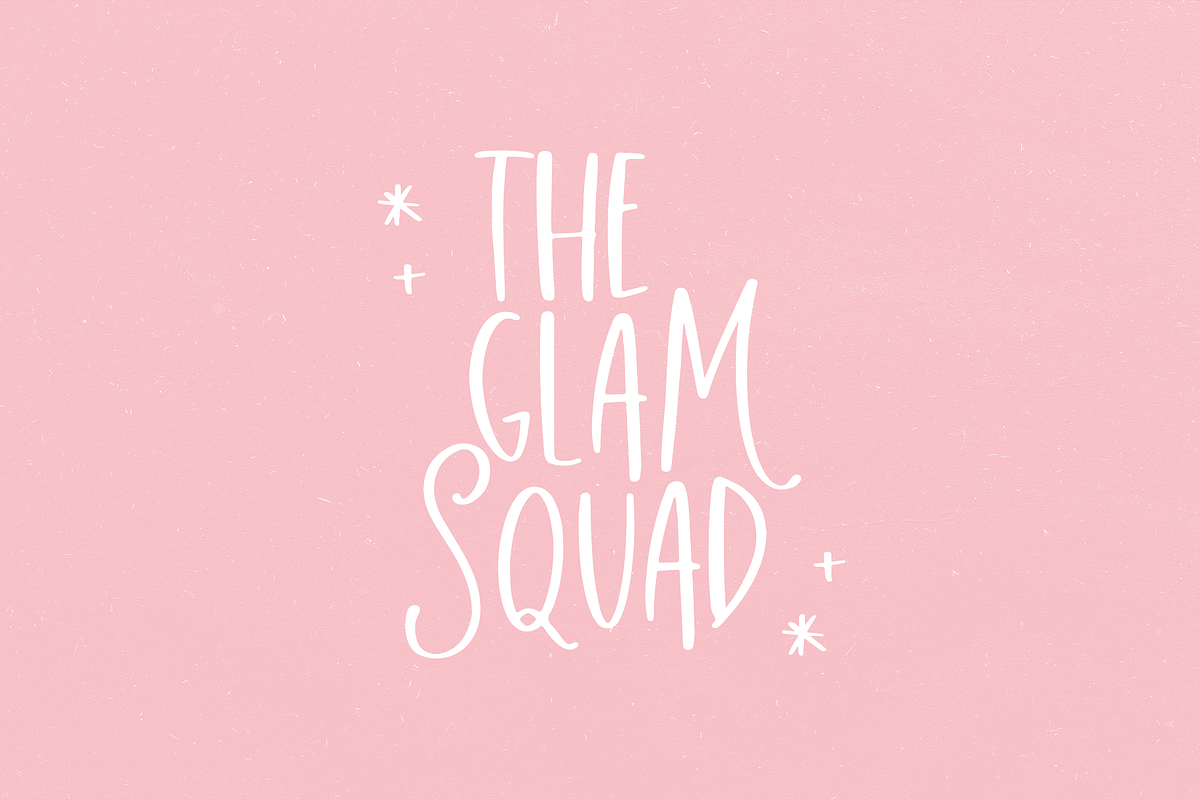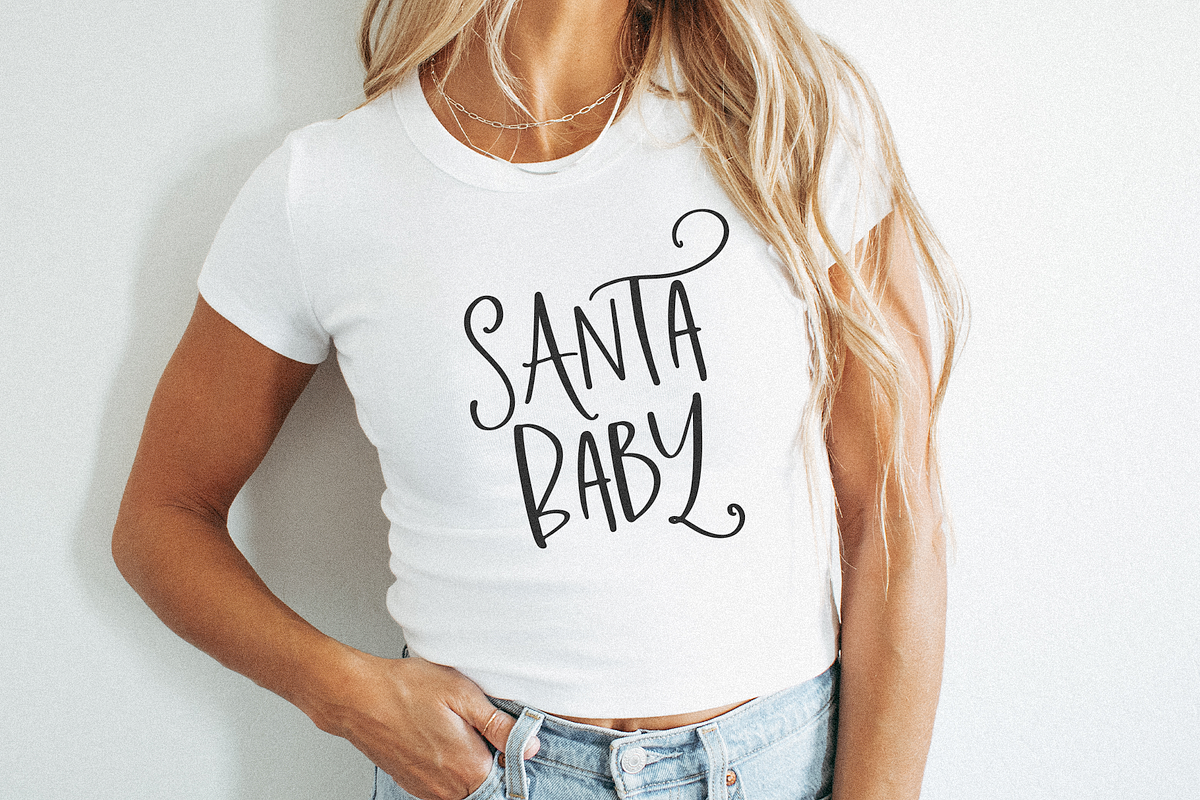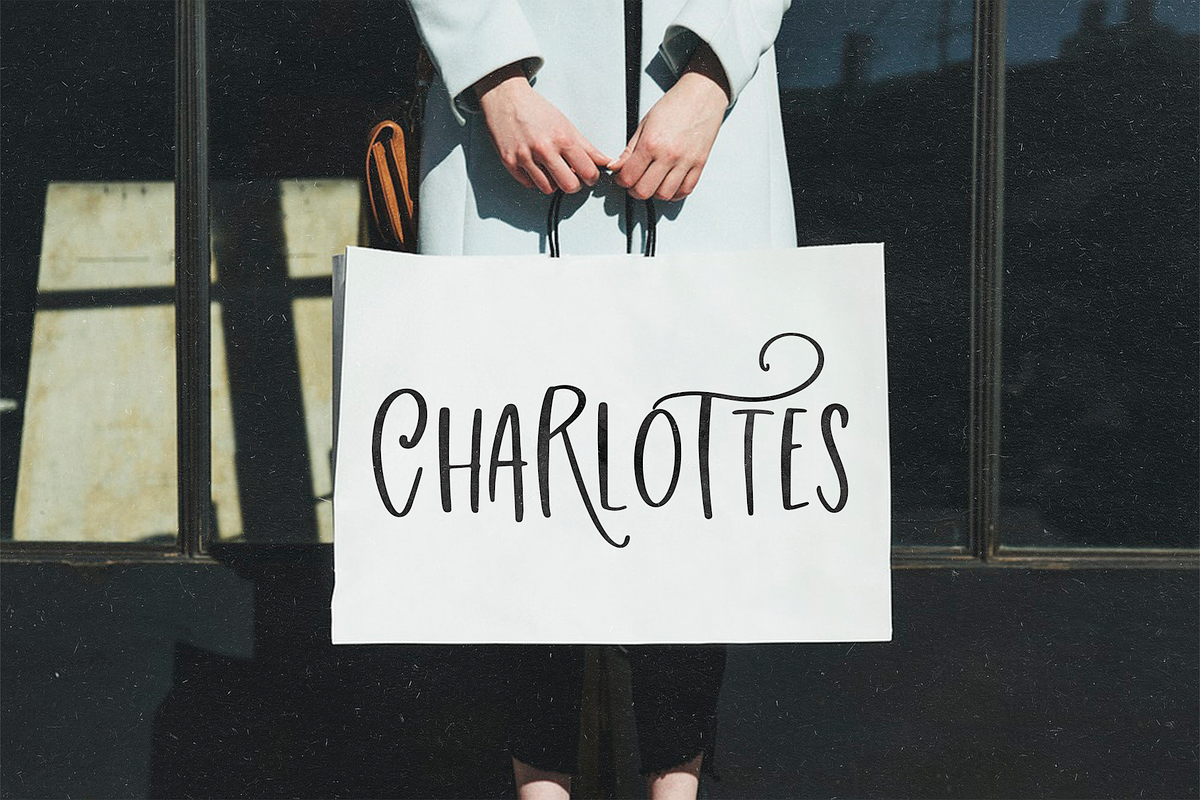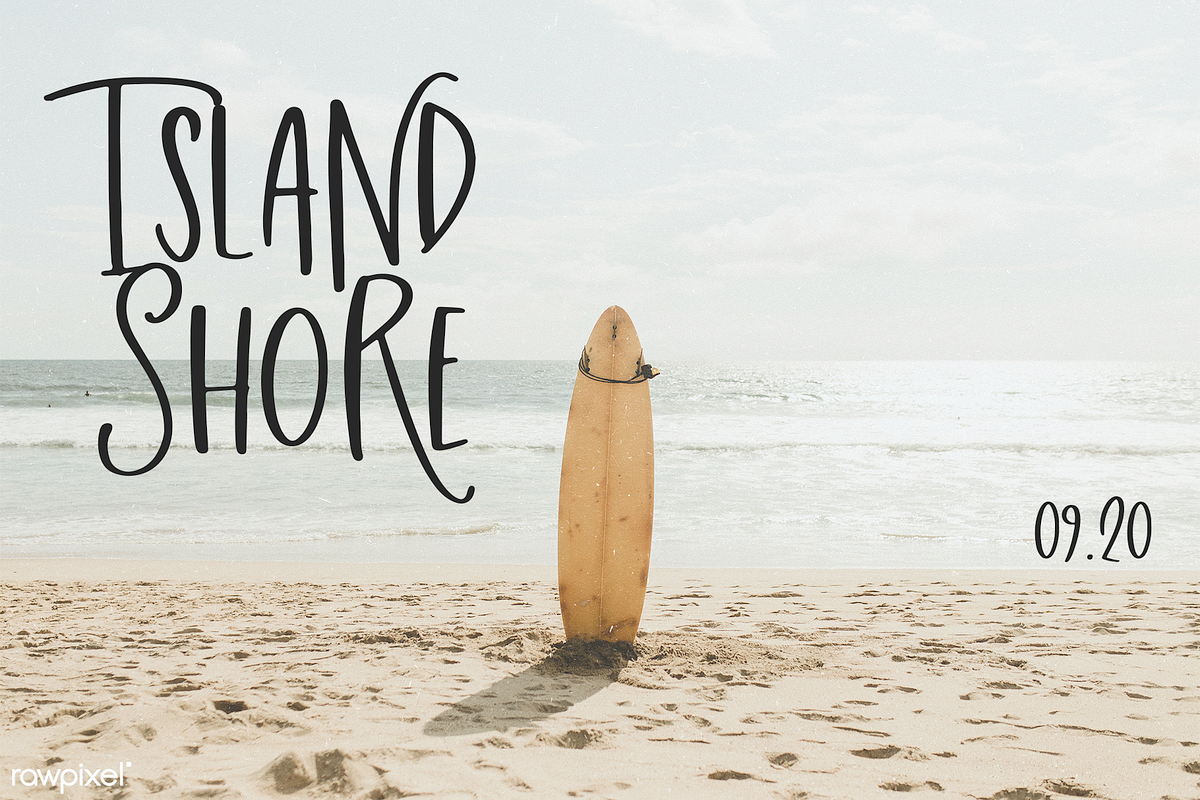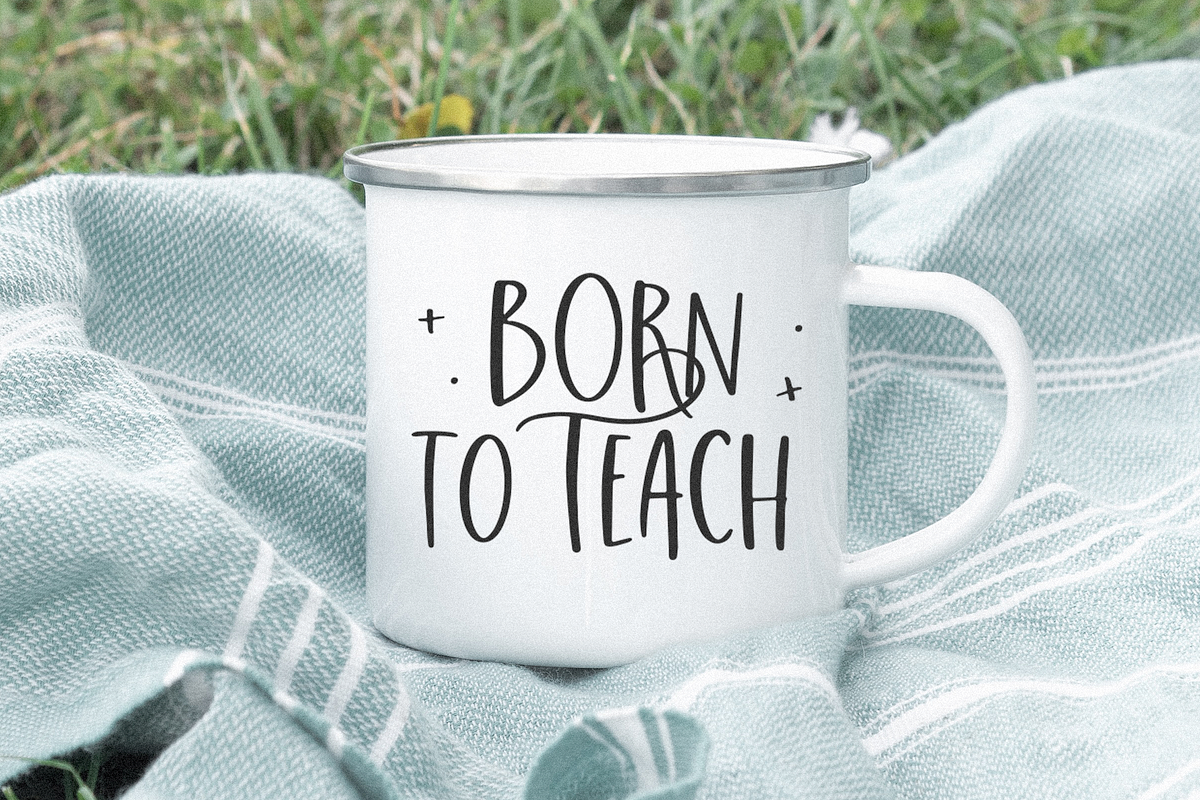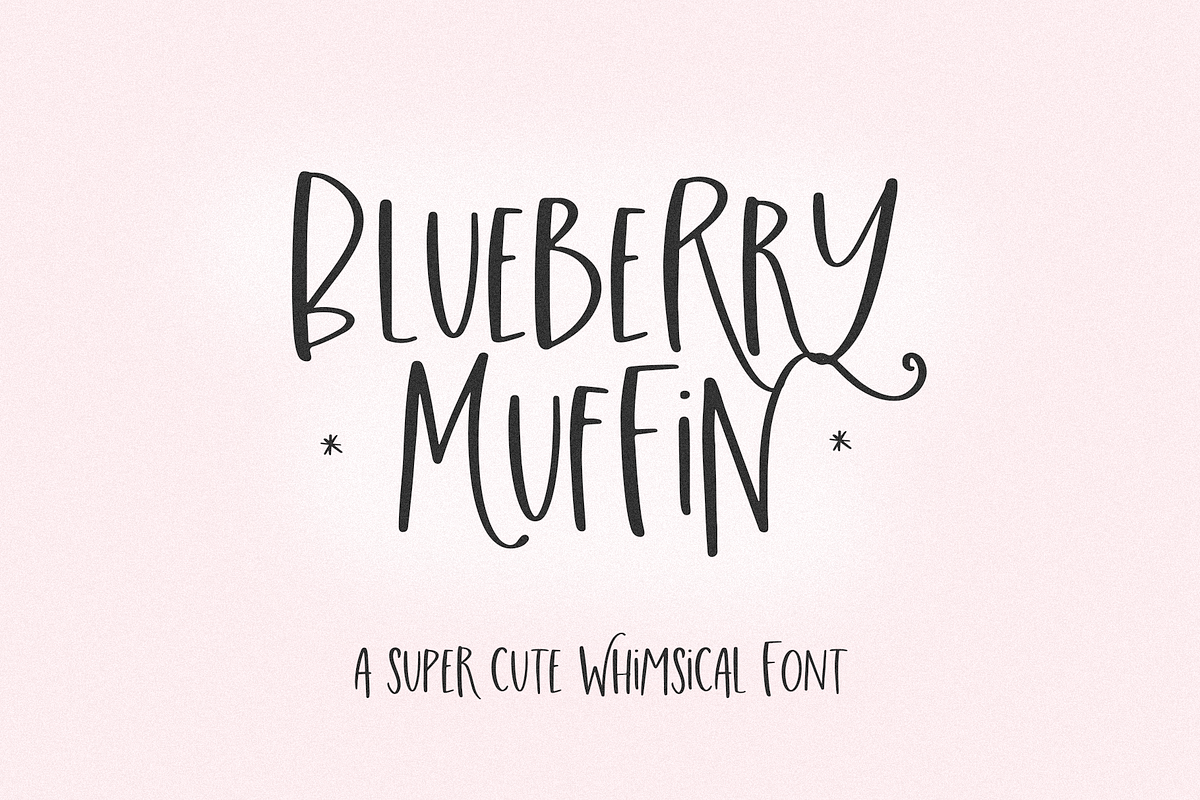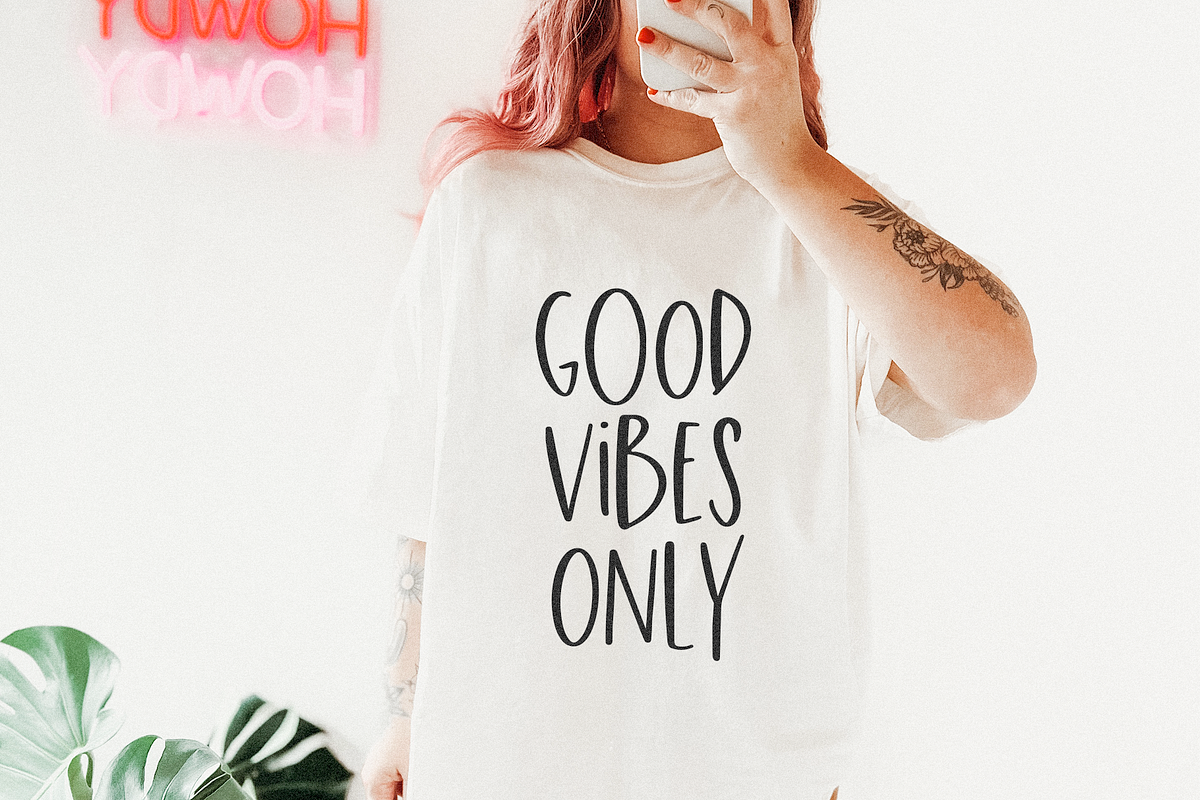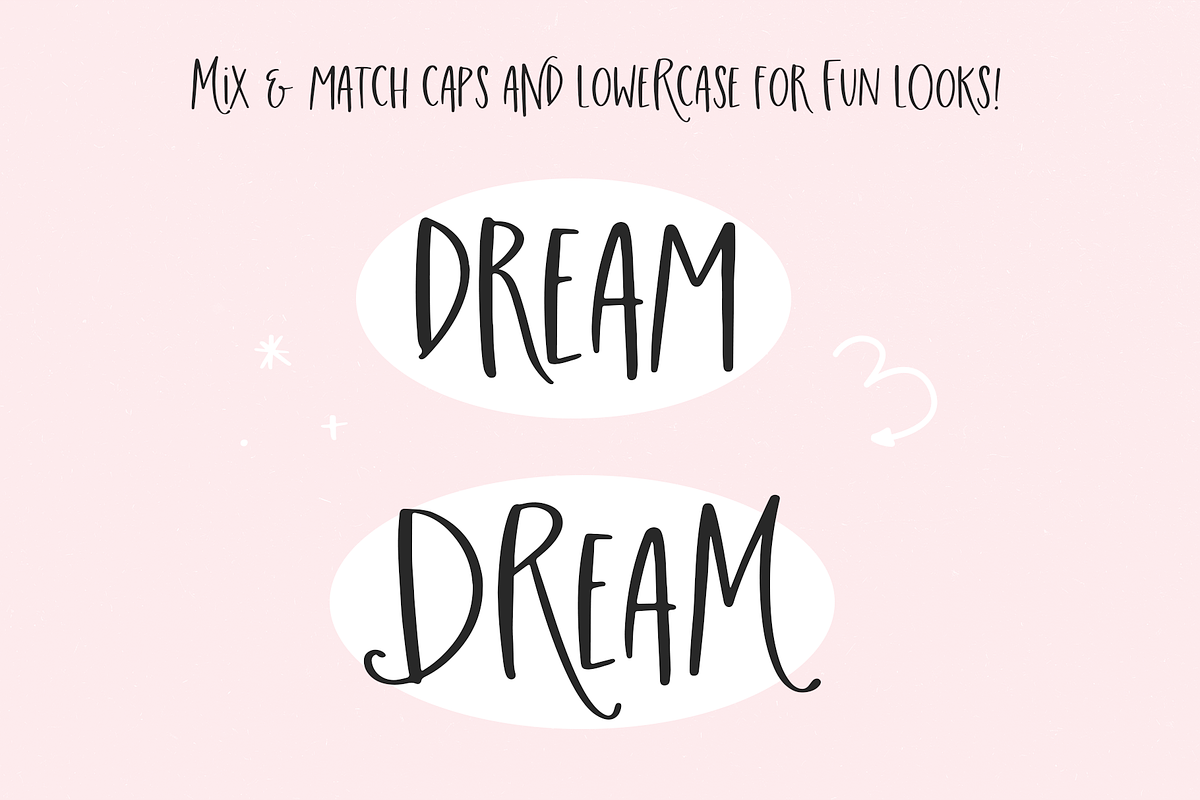
Blueberry Muffin | Cute Swash Font
Blueberry Muffin is a fun + quirky handwritten font!
This font is perfect for all of your cricut + crafting projects, branding, shirt design, svg designs and more!